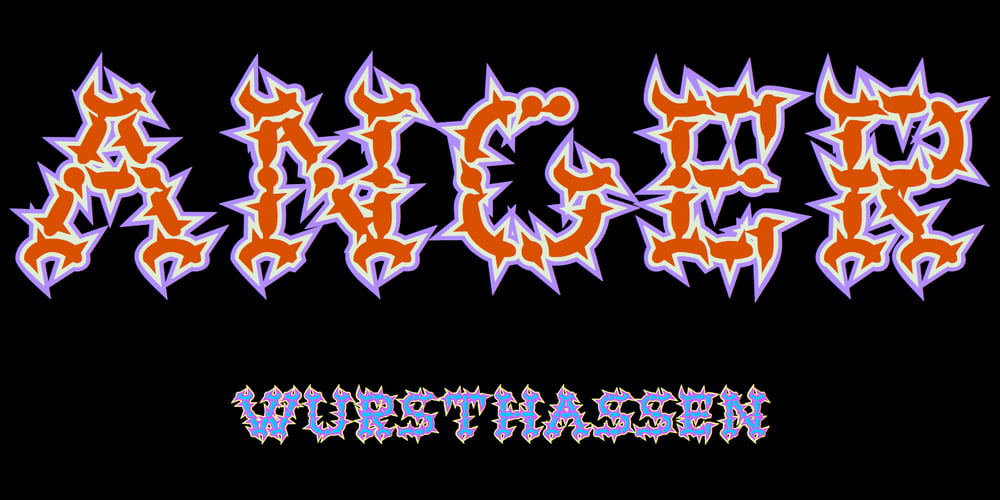
Wurst Hassen
Wurst Hassen font
Wurst Hassen Font Family was designed by Robert Schenk and published by Ingrimayne Type. Wurst Hassen contains 3 styles and family package options. WurstHassen is an ugly, violent typeface, full of anger and rage.The two overlay styles can be used alone or layered with the base font to produce bi- or tricolored lettering.